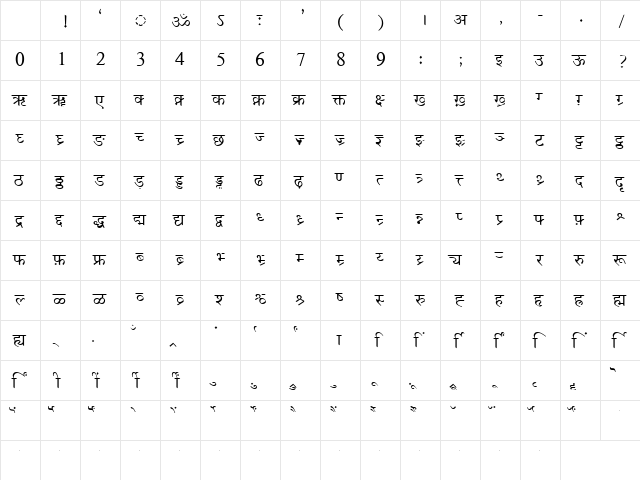
Complete DV-TTSurekhEN Normal glyph index. Displaying only characters natively supported by DV-TTSurekhEN Normal font.
DV-TTSurekhEN is a composed and adaptable typeface that performs quietly and consistently across a wide range of design contexts.